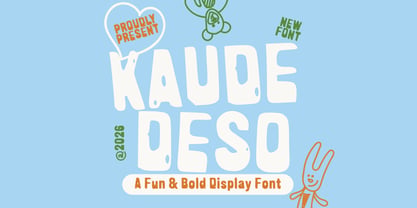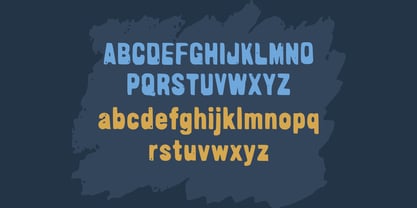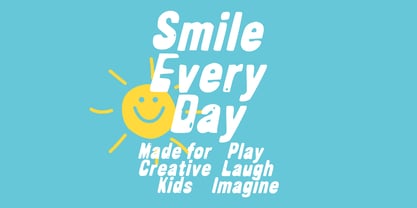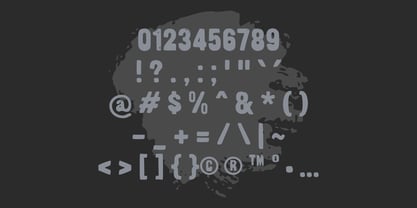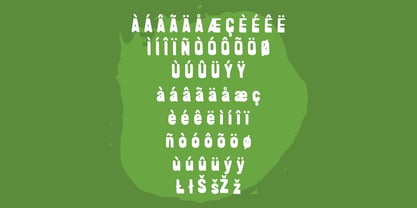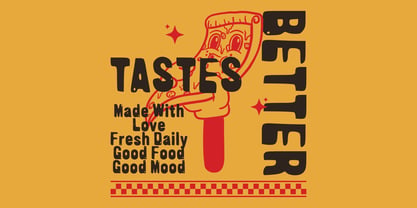
Kaude Deso
by Mei Suseno
The Kaude Deso Font Family was designed by Wahyu Eka Prasetya, Mei Suseno and published by Mei Suseno. Kaude Deso contains 2 styles and family package options. More about this family
Kaude Deso is a bold handmade display font inspired by rustic charm, countryside living, and vintage handcrafted lettering. Its chunky letterforms, organic curves, and playful imperfections create a warm, friendly personality that instantly grabs attention. Perfect for logos, branding, packaging, posters, café menus, apparel, children's products, social media graphics, stickers, and creative merchandise, Kaude Deso brings a fun and authentic handcrafted feel to every design. Whether you're creating outdoor-inspired artwork, retro branding, or cheerful marketing materials, this font delivers a unique look full of character and creativity.
Designers: Wahyu Eka Prasetya, Mei Suseno
Foundry: Mei Suseno
Mei Suseno is an independent type foundry focused on creating distinctive, high-quality typefaces for modern branding, editorial design, digital products, and visual communication. The foundry combines contemporary aesthetics with careful craftsmanship to develop fonts that are both functional and expressive. With an emphasis on originality, versatility, and strong visual identity, Meisuseno aims to support designers, creative studios, and brands in building memorable and effective design experiences across print and digital media.